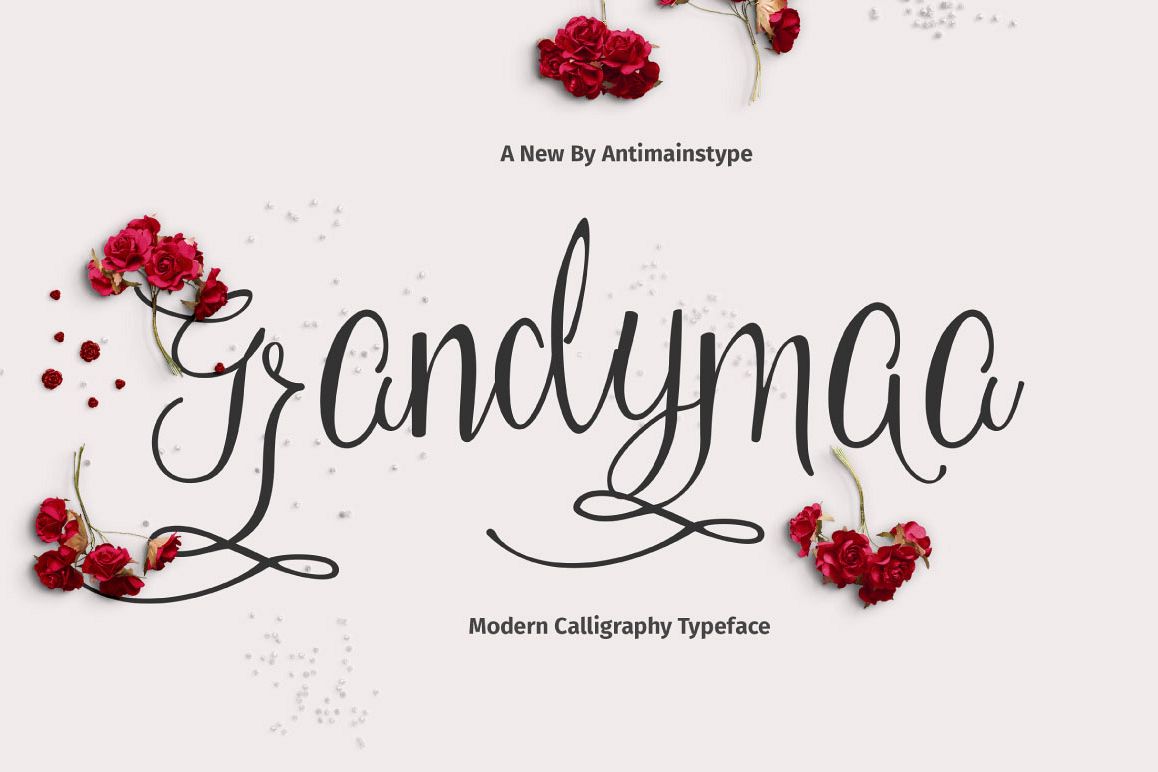
Grandymaa Typeface + Swashs
Grandymaa
Grandymaa Script is a new and sweet calligraphy typeface, with characters dance along the baseline. It has a casual and elegant touch. Can be used for various purposes.such as logos, wedding invitation, heading, t-shirt, letterhead, signage, lable, news, posters, badges etc.
OpenType features with stylistic alternates, contextual alternates, stylistic sets, ligatures, swashs and multiple language support.